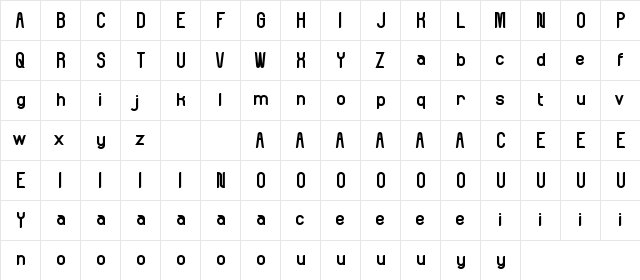
Neitherly Demo Bold Font Preview
Neitherly Demo Bold
Neitherly Demo Bold Font Details
Design Context for Neitherly Demo Typeface
Neitherly Demo takes a measured approach to typography — its balanced proportions and neutral character make it a reliable workhorse for both digital and print work. The heavy weight commands attention and anchors typographic hierarchies.